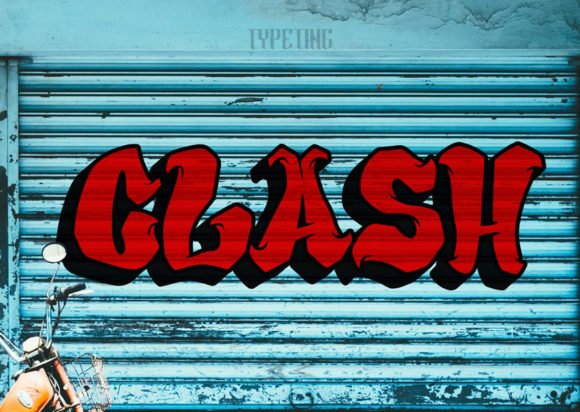
Get Ready to Make a Statement with Clash Font
Have you ever been stuck in a creative rut, staring at a blank page, waiting for inspiration to strike? It’s a familiar feeling for many designers and artists, but what if you had the perfect tool to break through that block and unleash your creativity? That’s where Clash Font comes in – a bold, graffiti-styled display font that’s guaranteed to add some excitement to your designs.
Clash Font is more than just a font – it’s a statement piece that’s perfect for adding a touch of edginess to your letterheads, titles, and stationery. Its unique, original look makes it a valuable addition to any designer’s toolkit, and its versatility means it can be used in a wide range of creative projects.
Key Features of Clash Font
- Unique Characteristics: Clash Font features a bold, distressed, and hand-drawn style, making it perfect for creating attention-grabbing headlines and titles.
- Font Weight and Style: The font comes in multiple weights, including Light, Regular, Medium, Bold, and Black, allowing for a range of tonal options and flexibility in design.
- Font Metrics: The font has been carefully crafted to ensure optimal font metrics, including x-height, cap height, and baseline, for a professional and polished look.
Clash Font Review
Overall, I was excited to dive into the Clash Font, but it left me with mixed feelings.
- The font’s bold and playful style catches the eye and is perfect for creating attention-grabbing headlines.
- The clash of opposing styles, such as serif and sans-serif, creates a visually interesting effect that adds to its charm.
- The font is well-suited for use in digital interfaces, such as mobile apps and websites, where a bold and modern look is desired.
- The font’s irregularities can make it difficult to read in certain contexts, particularly in large blocks of text.
- The clash of styles can also make the font feel disjointed and unpolished in some situations.
- The font may not be suitable for use in situations where a more traditional or elegant look is desired.
Overall, I think the Clash Font is a great choice for designers looking to add some visual interest to their projects. However, it may not be the best fit for every situation, and its limitations should be carefully considered.
Tips for Getting the Most Out of Clash Font
Experiment with different font sizes and styles to achieve the desired look.
Use Clash Font in combination with other fonts for a unique and eye-catching design.
Consider using Clash Font in bold or italic styles to add emphasis to your text.
Common Use Cases for Clash Font
Use Clash Font for headings, titles, and other prominent text elements.
Apply Clash Font to social media graphics, posters, and other visual content.
Experiment with Clash Font in logos, branding materials, and other identity elements.
How do I customize Clash Font for my specific design needs?
Clash Font is a variable font, which means that it can be customized using font parameters such as weight, width, and slant. You can use font editing software like FontForge or Glyphs to customize the font, or use a design tool like Adobe Illustrator or InDesign to apply custom font settings to your design.